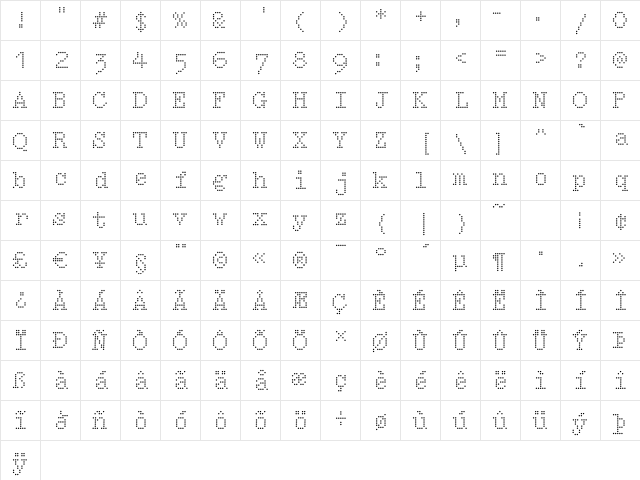
Intimo One
Style: One
Intimo Family
Intimo One
Design Context for Intimo
Intimo is a composed and adaptable typeface that performs quietly and consistently across a wide range of design contexts.